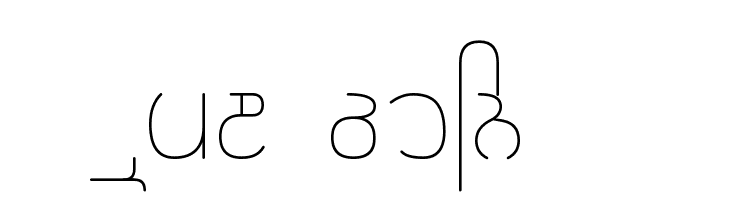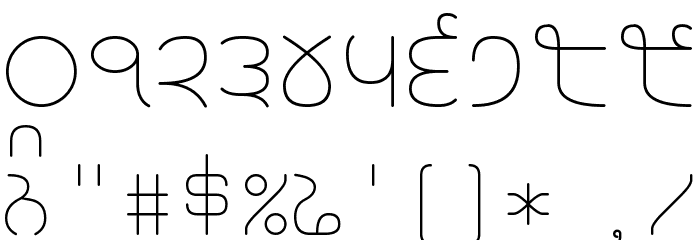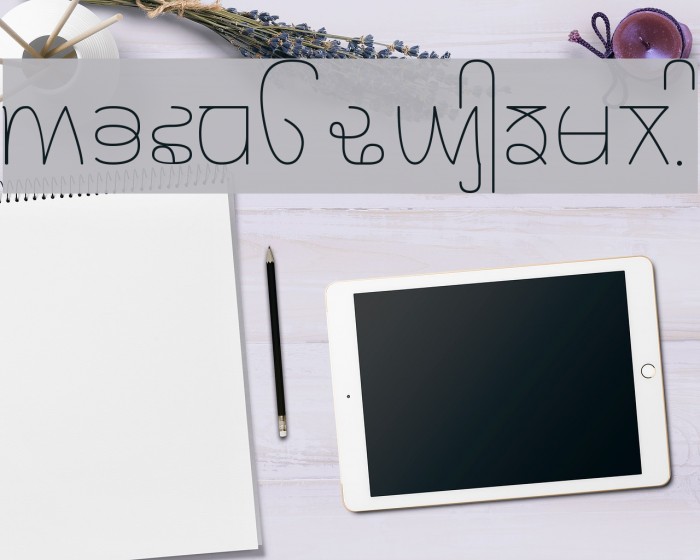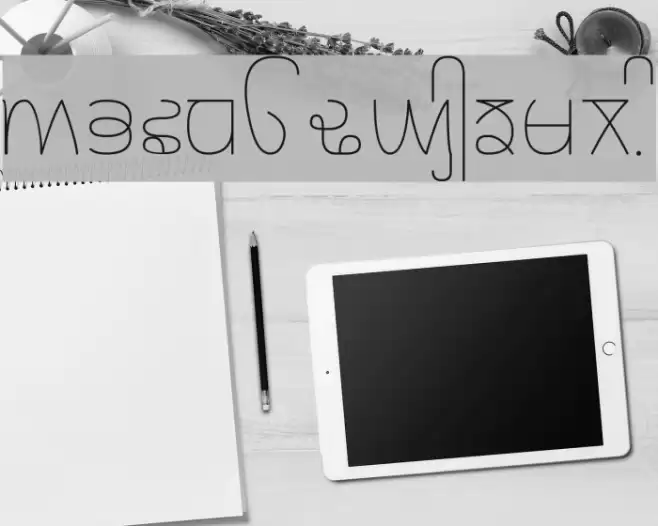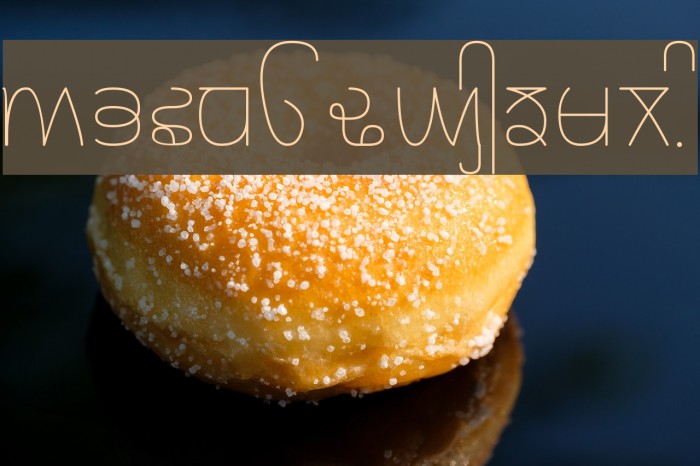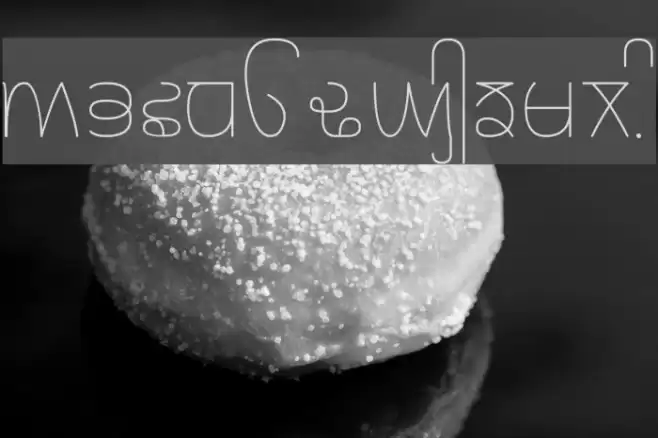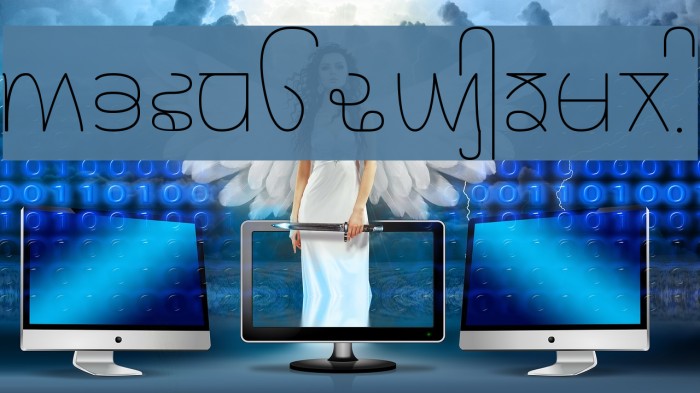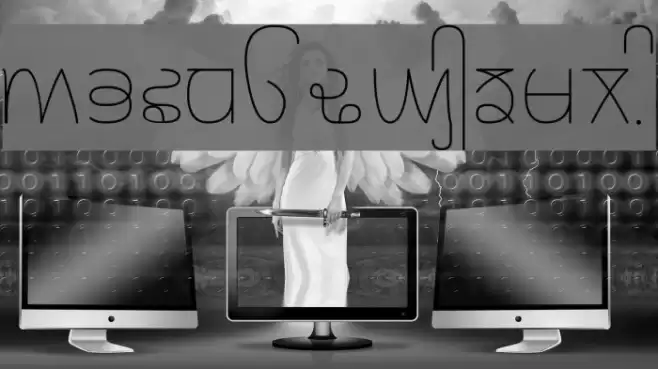
Rupe Thin Font
Rupe Thin Description
This font features a unique, abstract design with a futuristic and artistic flair. The characters are composed of thin, continuous lines that form intricate loops and curves, giving it a highly stylized appearance. The overall look is minimalistic yet complex, with a distinct geometric influence. Each letter has a playful and unconventional form, making it stand out in any design. The font's thin strokes and open spaces create a sense of lightness and elegance, while the creative shapes add a touch of whimsy and modernity.
| Overall Style | Modern, Artistic |
| Use Case | Logos, Posters, Artistic Displays |
| Proposed Projects | Ideal for creative projects such as album covers, modern art posters, or innovative branding materials. |